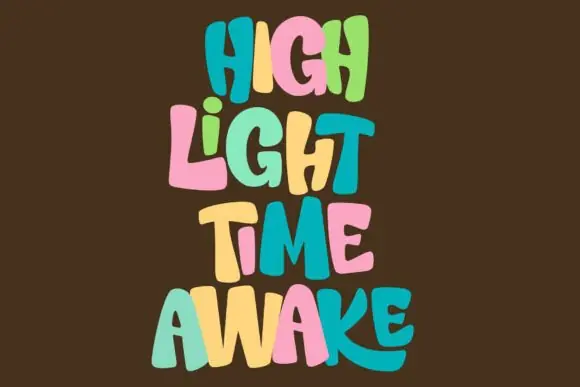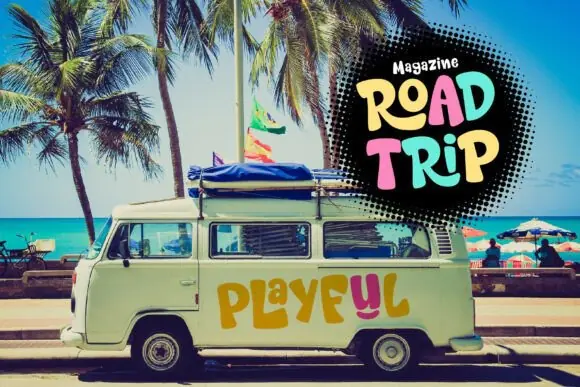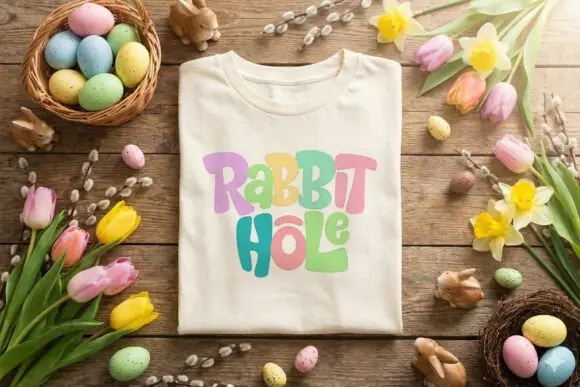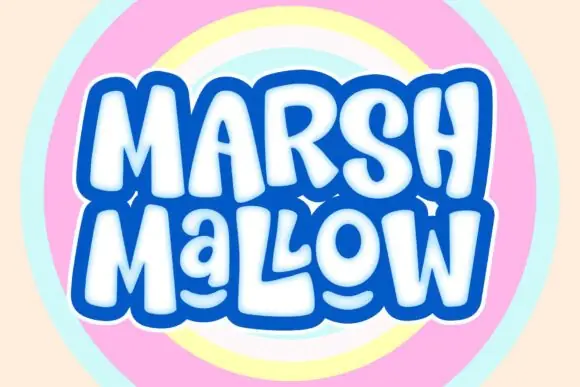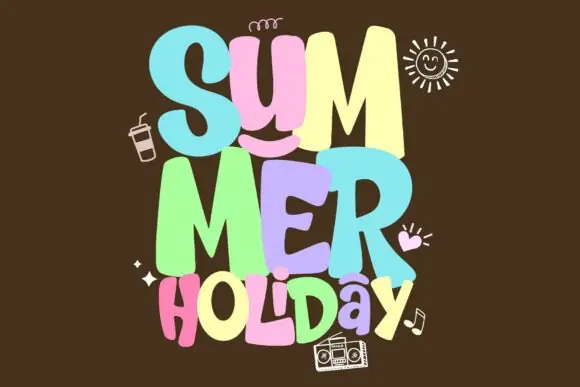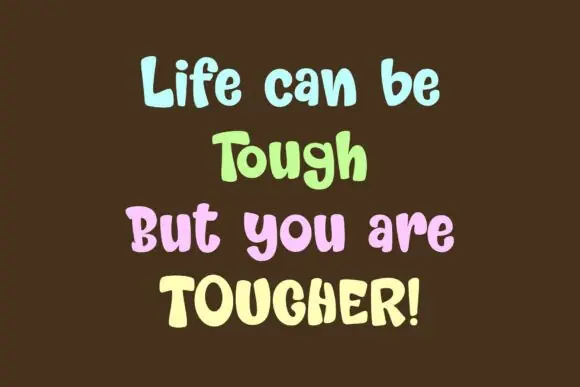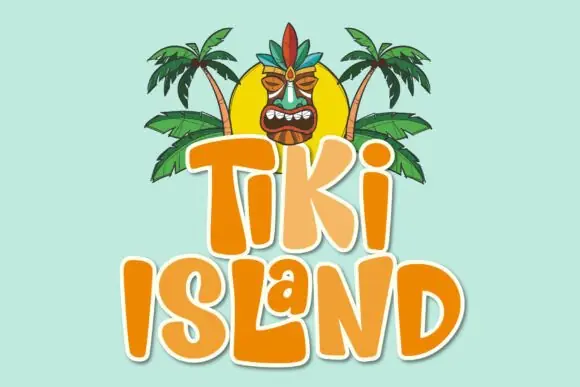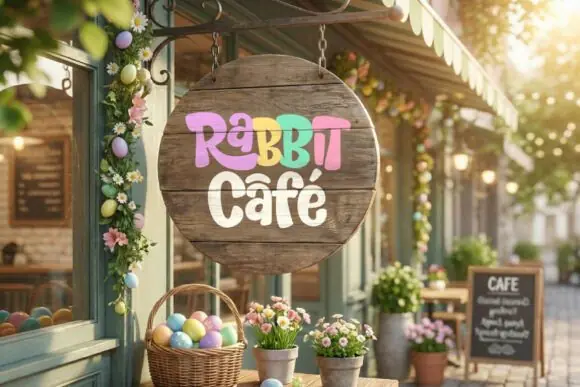
Rabbit Hole Bold Retro Display Font – Quirky Playful Typeface for Kids Designs, Posters, Packaging, Merchandise, Creative Branding, Logos, Stickers & Fun Visual Storytelling Projects
Add quirky charm, retro energy, and bold personality to your designs with Rabbit Hole Font, a playful display typeface created to make your typography stand out with fun and confidence. Its lively retro vibe, organic letter structure, and energetic rhythm make it perfect for designs that need a cheerful, creative, and attention-grabbing look.
Rabbit Hole Font is especially suitable for children’s designs, creative branding, posters, product packaging, merchandise, stickers, logos, party graphics, social media posts, printable wall art, apparel designs, toy branding, kids activity materials, and playful digital products. Its bold display style gives your text strong visual impact, while its quirky personality keeps the design friendly, amusing, and full of life.
Whether you are creating a colorful poster, fun product label, kids brand logo, playful sticker design, or bold merchandise artwork, Rabbit Hole Font helps your message feel more expressive, memorable, and visually engaging. It is a great choice for designers, crafters, small business owners, print-on-demand sellers, children’s product creators, and digital artists who want a font that combines retro fun with standout display power.
Children’s designs, creative branding, posters, packaging, merchandise, logos, stickers, toy branding, kids products, party invitations, social media graphics, printable wall art, apparel designs, classroom materials, digital downloads, and playful visual storytelling projects.
Key Features
• Bold playful display font style
• Quirky charm with a lively retro vibe
• Organic structure with energetic rhythm
• Great for children’s and creative branding projects
• Strong visual impact for posters, packaging, and merchandise
• Fun, friendly, amusing, and attention-grabbing appearance
• Perfect for digital, print, craft, and product-based designs